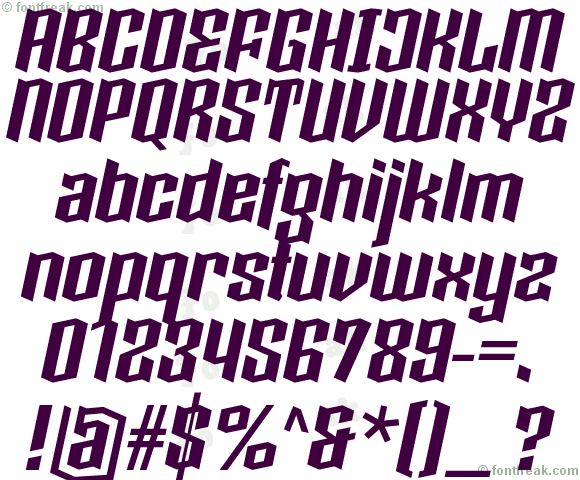
Boxise
About Boxise
Boxise is a striking display font designed by Situjuh Nazara, categorized as a decorative typeface. This font features a bold and dynamic style, characterized by its strong, angular strokes and unique letterforms that convey a sense of modernity and creativity. The stroke weight is consistent, adding to its robust appearance, while the overall spacing is well-balanced, ensuring legibility even at larger sizes. The design includes subtle decorative elements that give it a distinctive flair, making it suitable for various creative applications.
The versatility of the Boxise font makes it perfect for a range of use cases. It can be effectively utilized for eye-catching movie posters, where its bold character can draw attention and convey the film's energy. Additionally, Boxise is an excellent choice for branding materials, such as logos and product packaging, where a memorable and impactful presentation is essential. Its vibrant style also shines in event flyers and promotional materials, making it ideal for businesses looking to create a striking first impression. Furthermore, this font can enhance restaurant menus, adding a contemporary touch that reflects modern culinary trends.
What sets Boxise apart is its unique blend of boldness and sophistication, making it a standout choice for those seeking to make a statement. Whether for commercial or personal use, the Boxise font free download provides a valuable resource for creatives looking to elevate their designs with a distinctive flair.